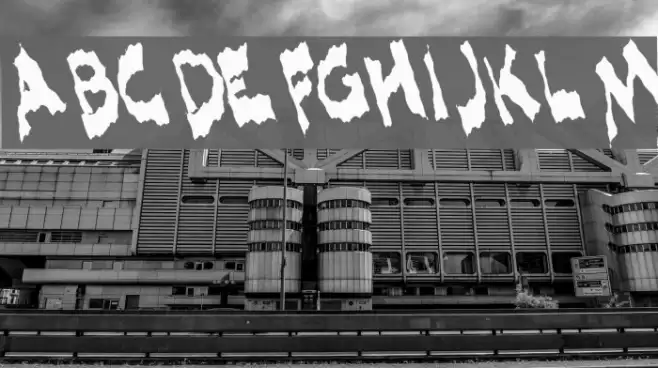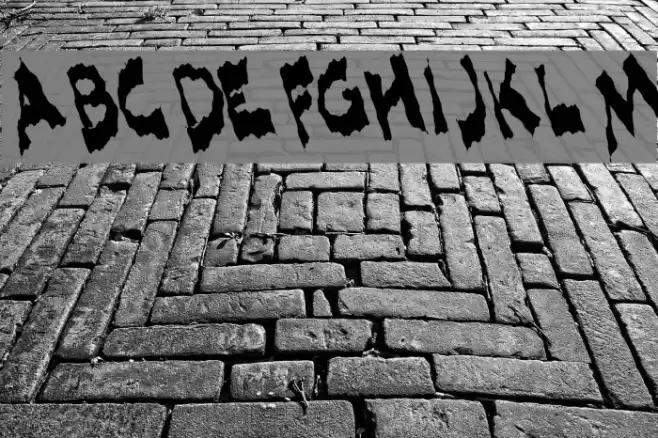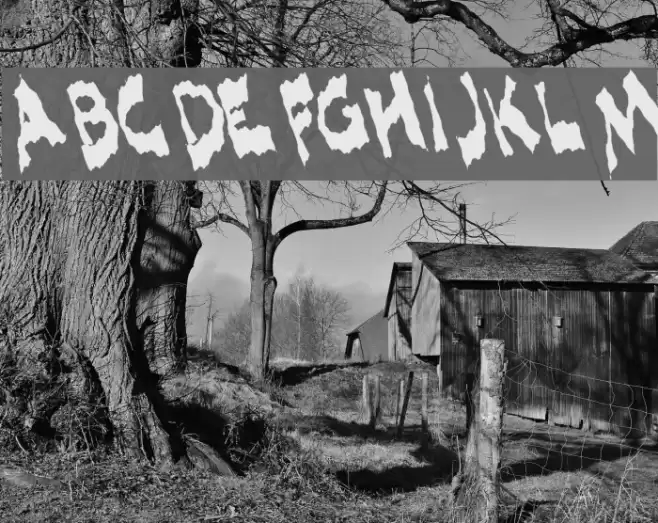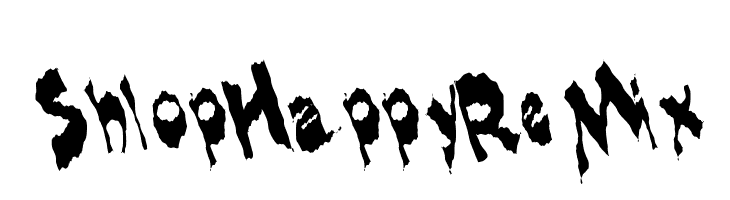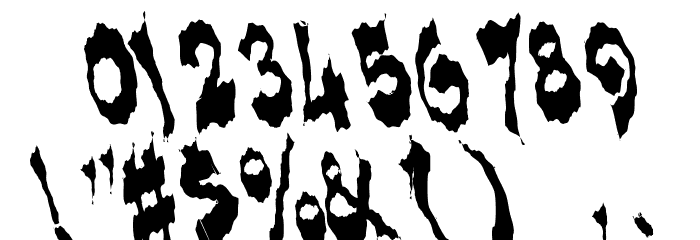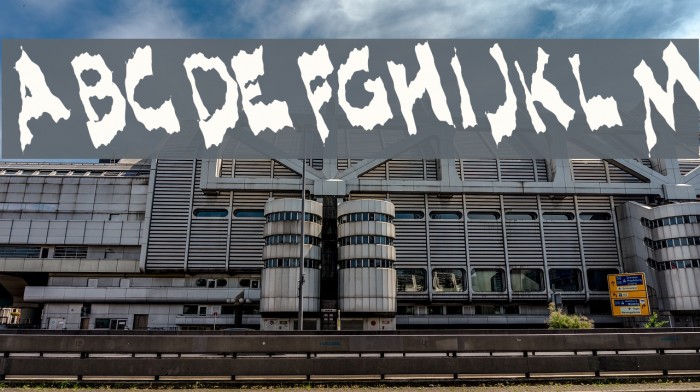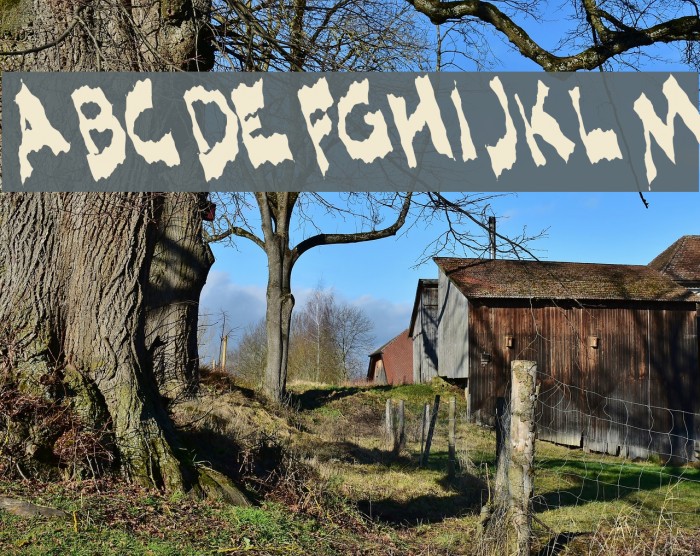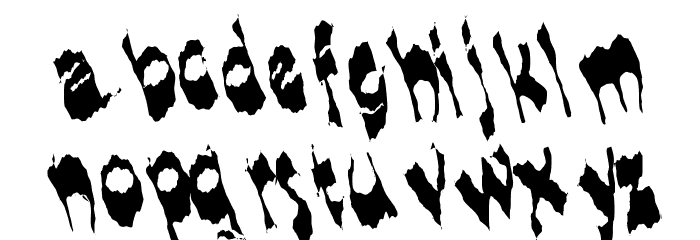
ShlopHappyReMix Font
ShlopHappyReMix Description
This font features a highly irregular and jagged design, reminiscent of torn paper or rough textures. Each character appears as if it has been manually crafted with uneven edges, giving it a chaotic and dynamic appearance. The uppercase and lowercase letters maintain this rugged style, with varying thickness and unpredictable forms. Numbers and special characters follow the same aesthetic, contributing to a cohesive yet wild look. The font's unique style makes it stand out, ideal for projects that require a bold and unconventional visual impact.
A jagged, irregular font with a chaotic, torn-paper aesthetic from Uncategorized fonts.
- Proposed Projects: Ideal for horror-themed designs, edgy posters, album covers, or any project needing a bold, unconventional look.
- Use Case: Headlines, Posters, Album Covers